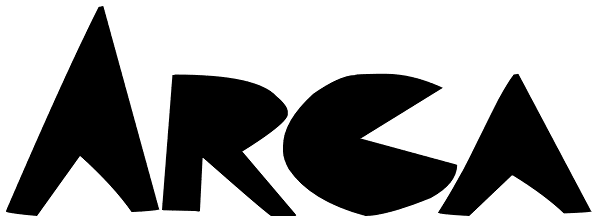
Arca
Arca is a whimsical font, based on a Brazilian children's album cover. The letters have an unique papercut look and will gracefully fit your design. Have fun, give it a try!